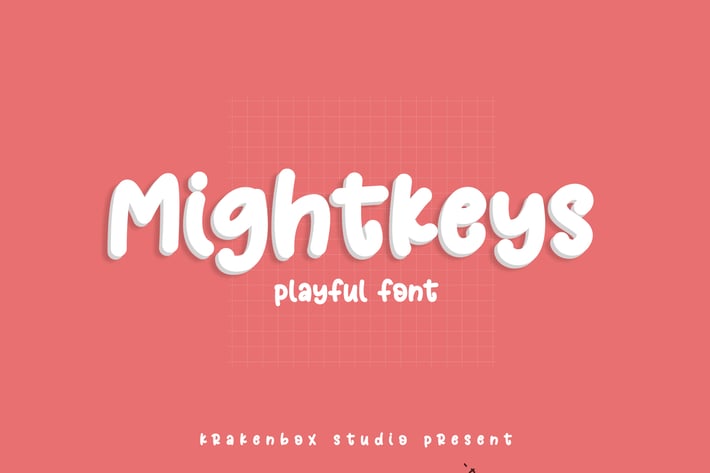
Mightkeys - Playful Display Font
Introducing Mightkeys - Playful Display Font by KrakenBox
Mightkeys is a cute and playful display font. Use this font to add that special cool touch to any design idea you can think of! It is perfect for any branding project such as logos, t-shirt printing, creative products, and more.